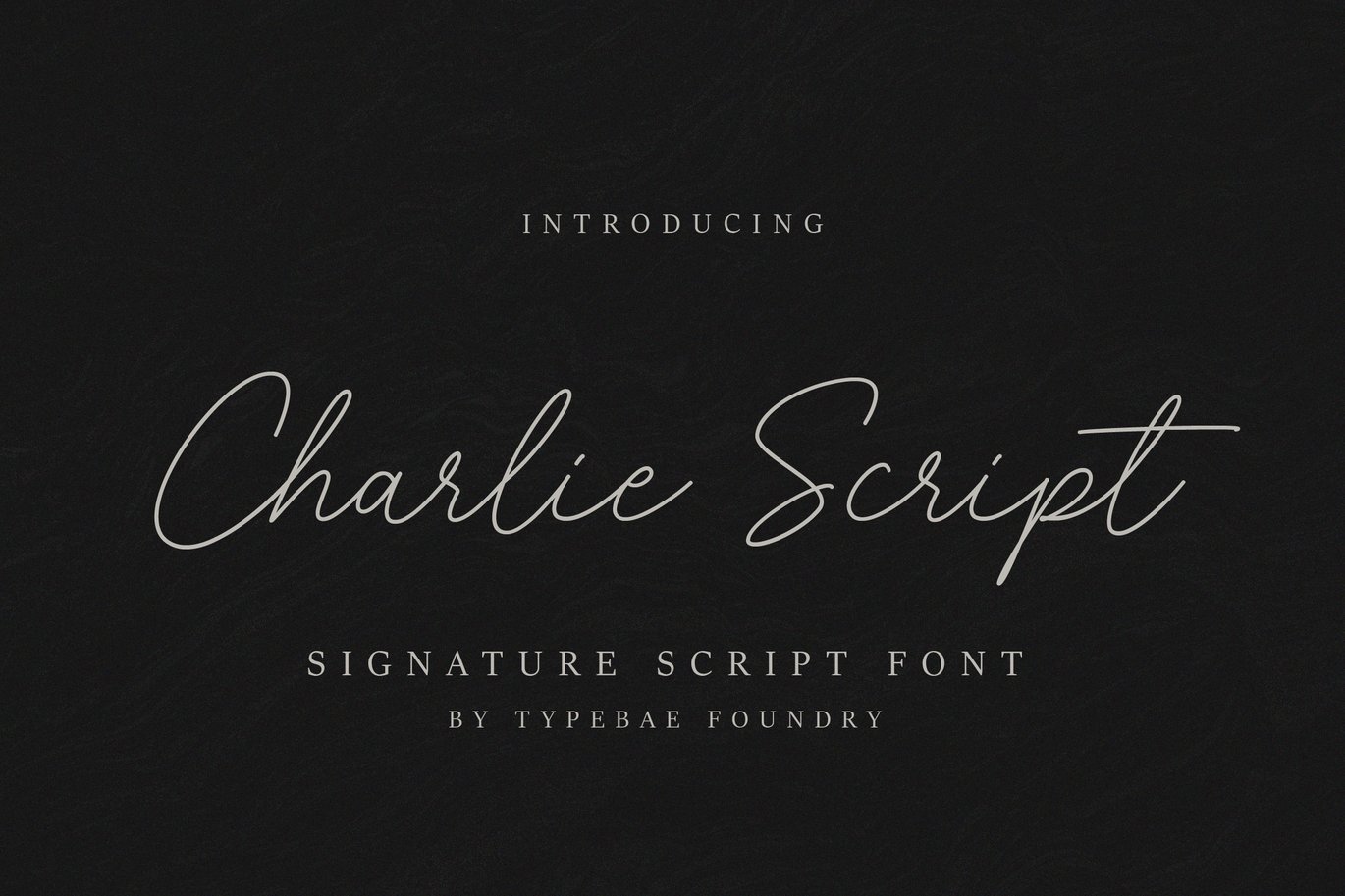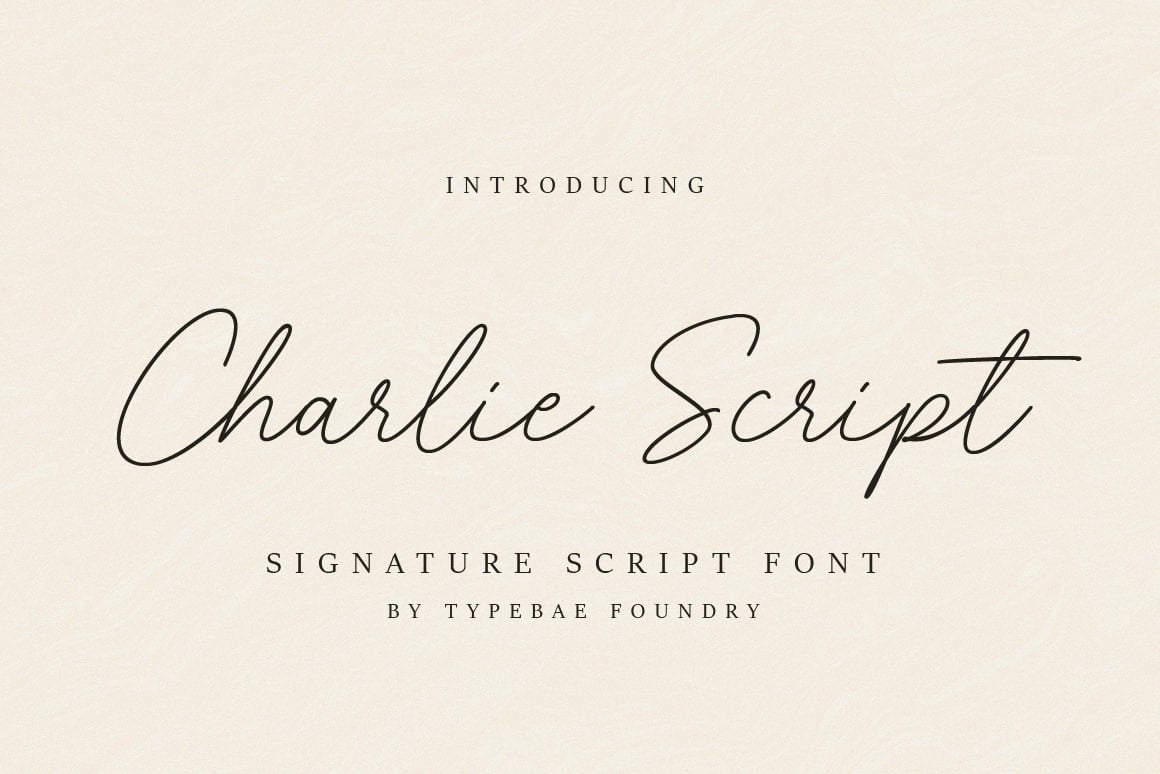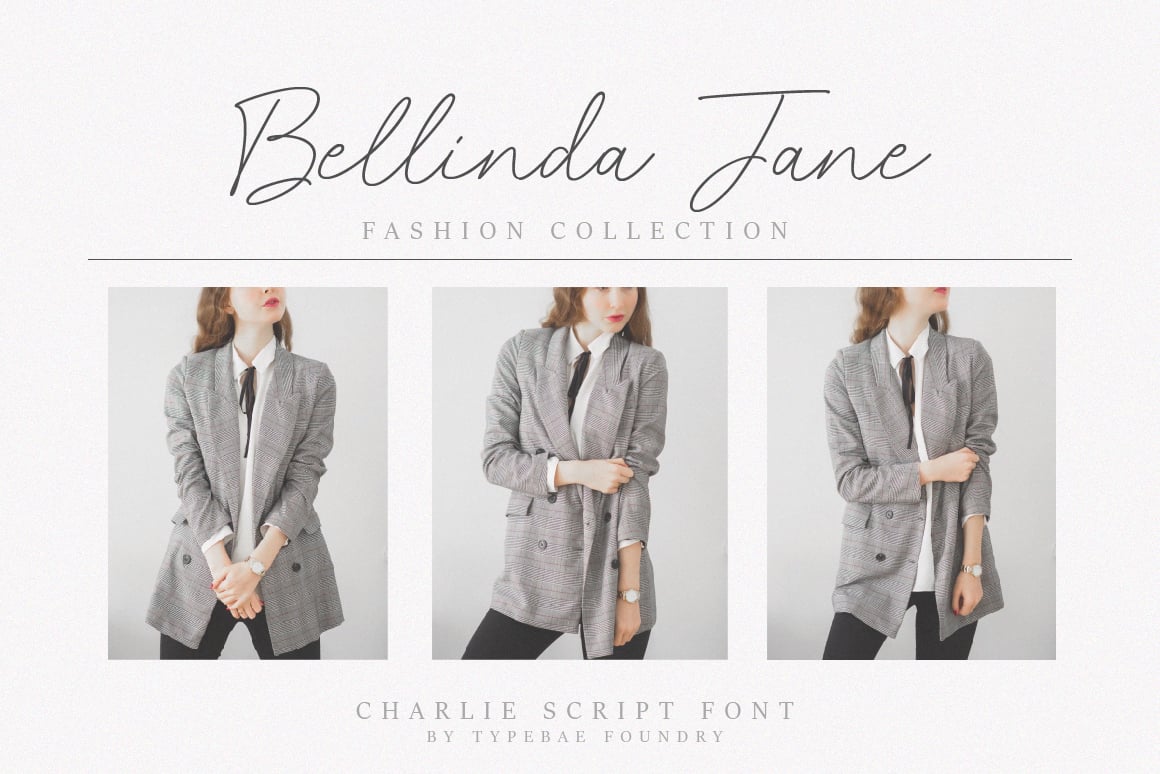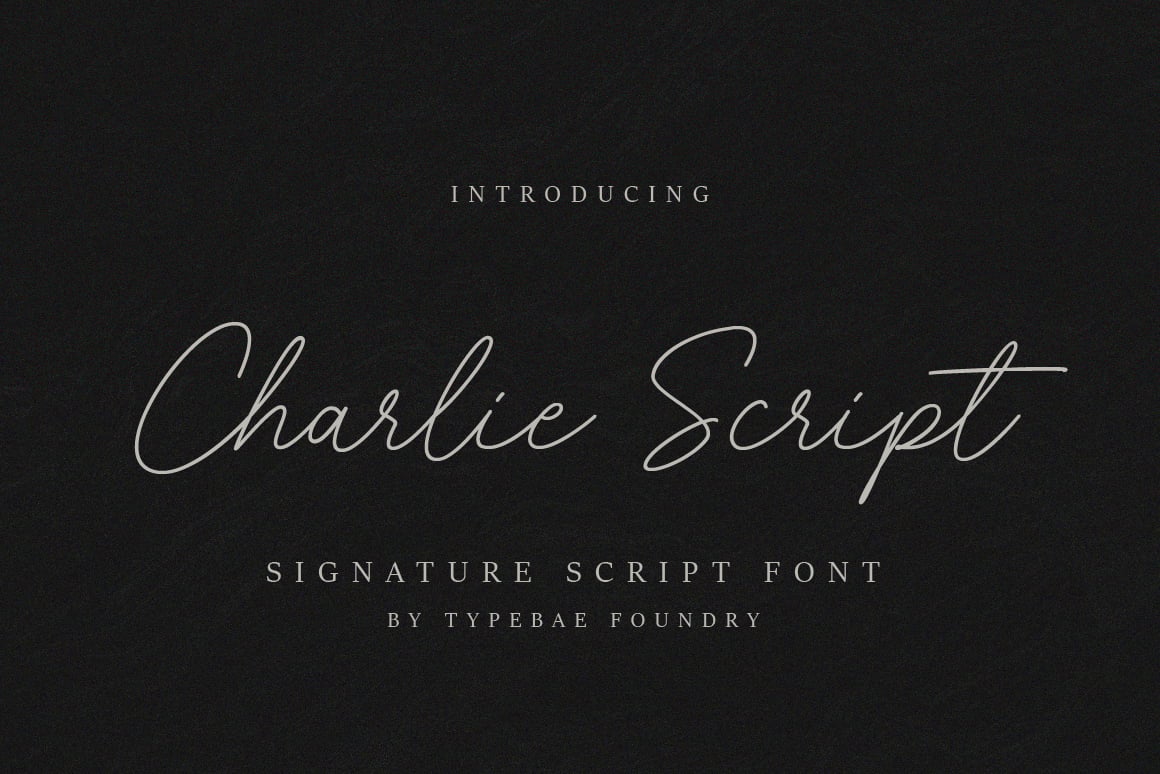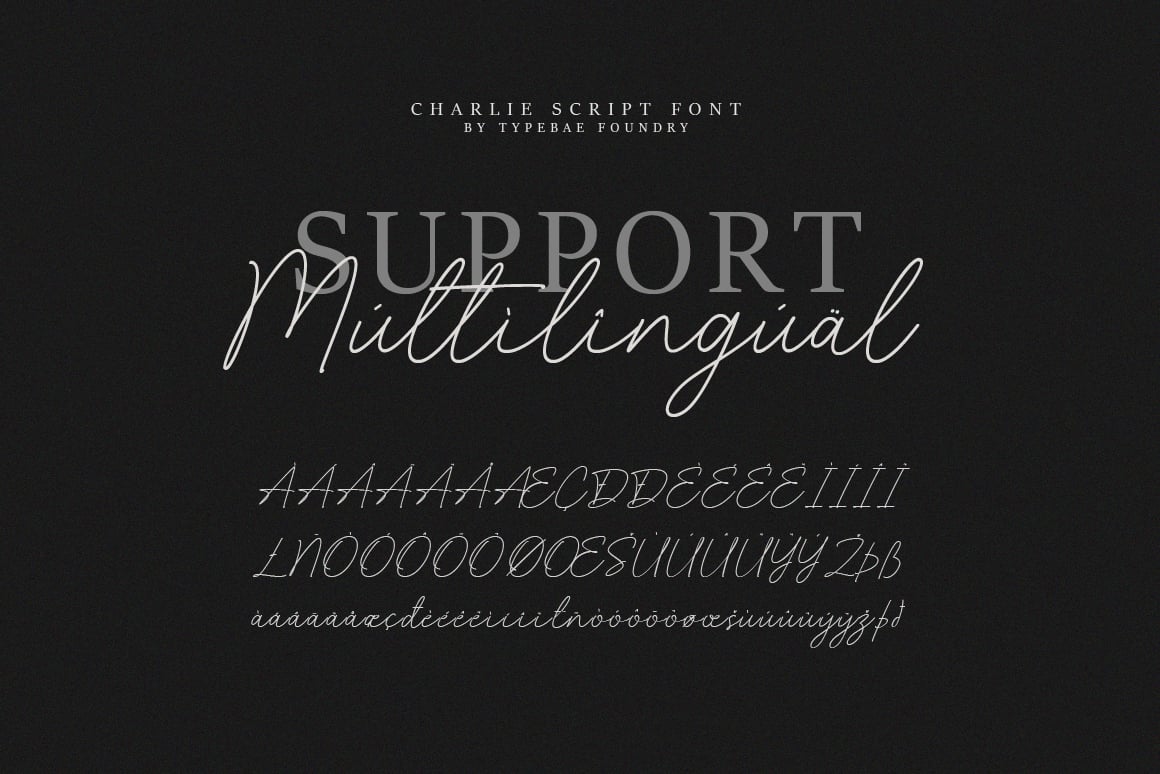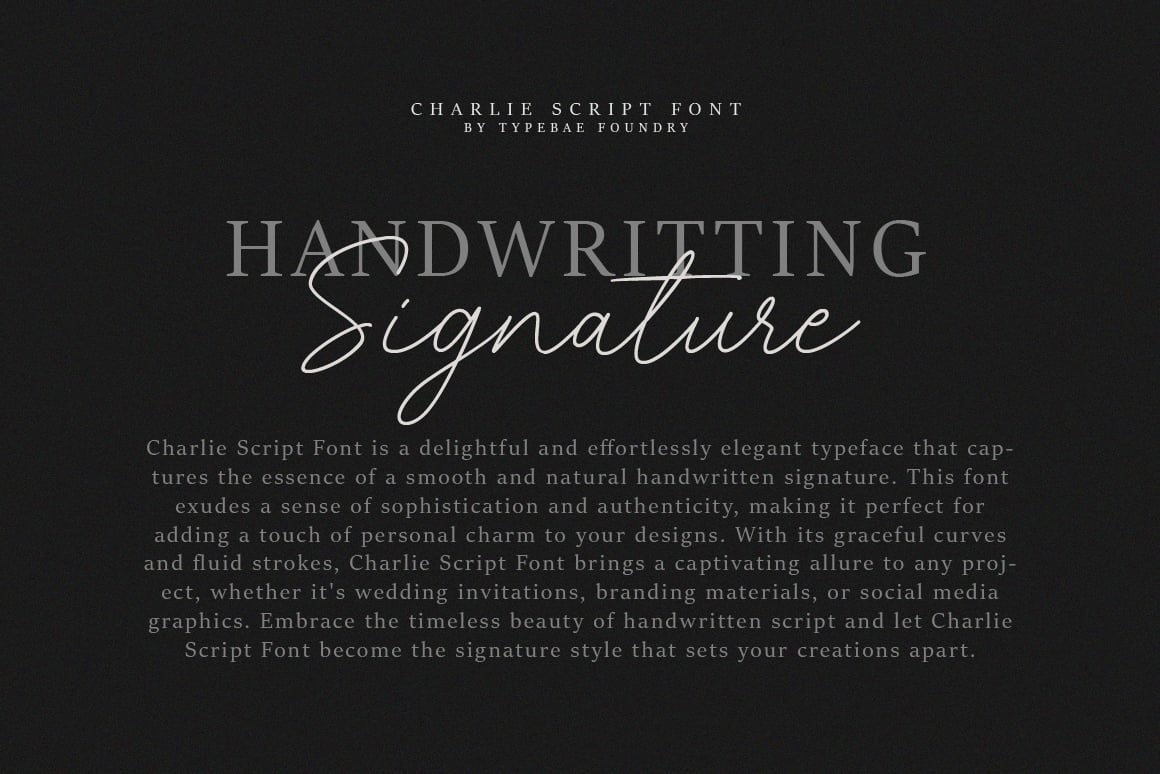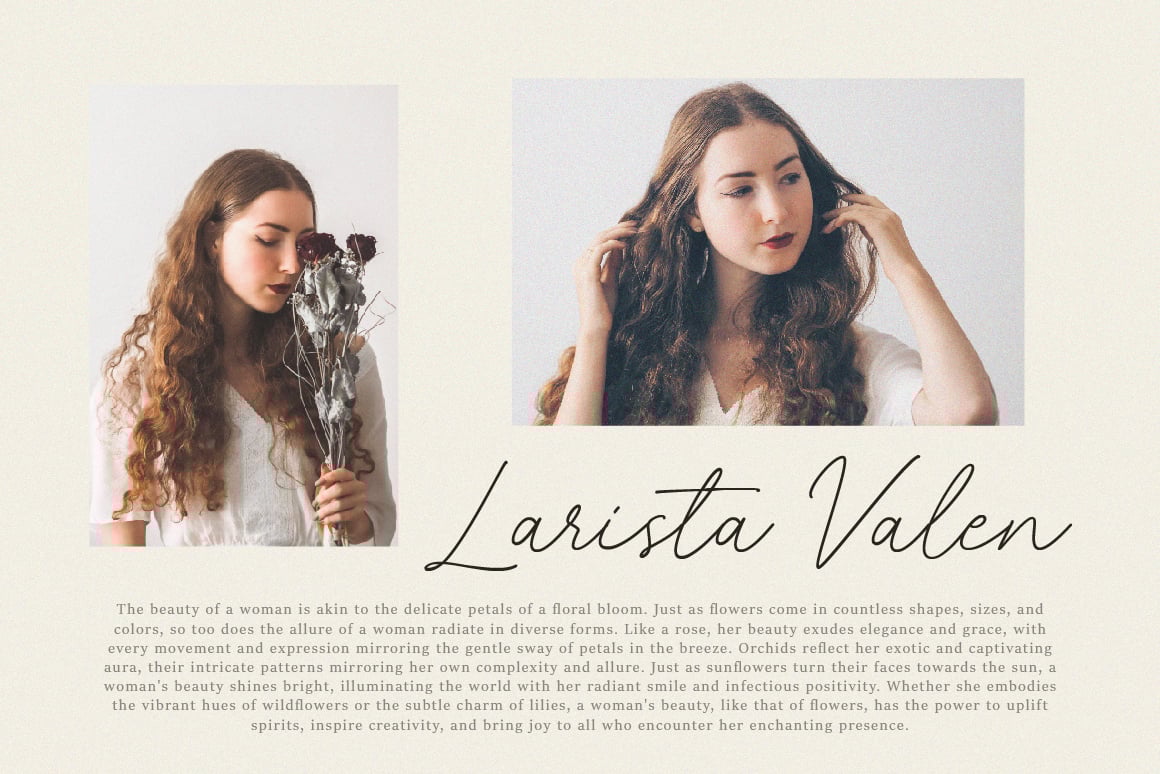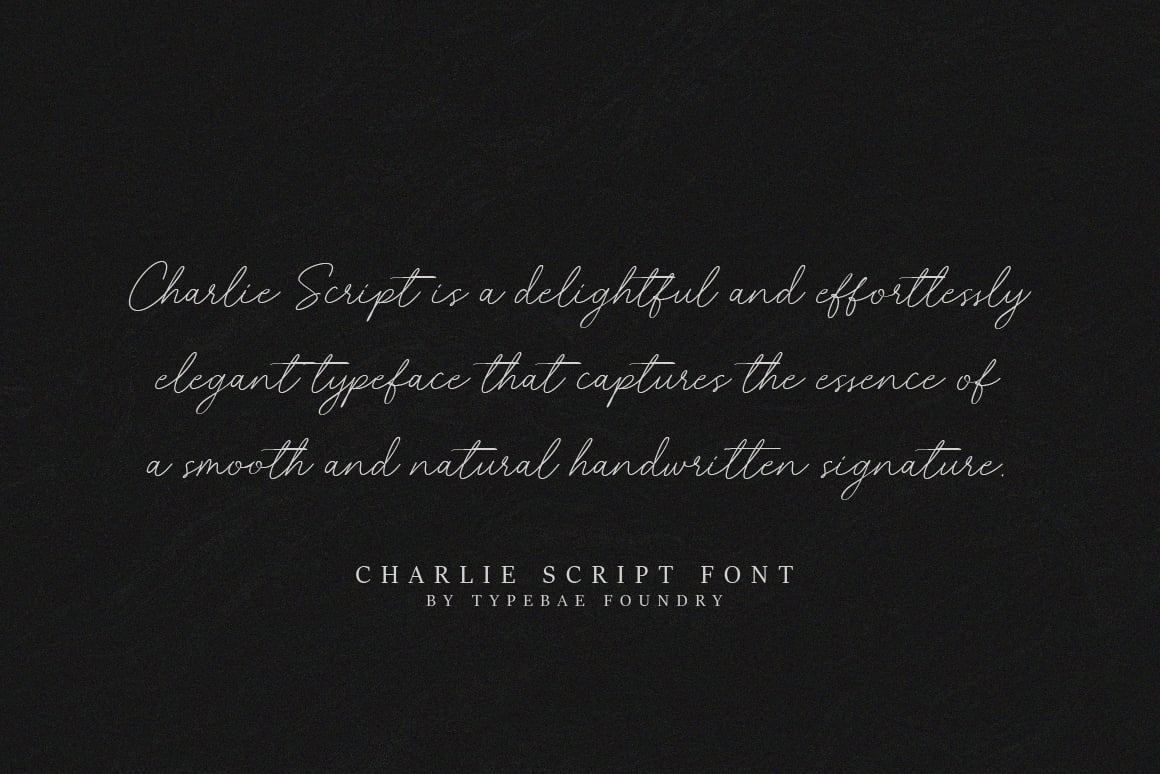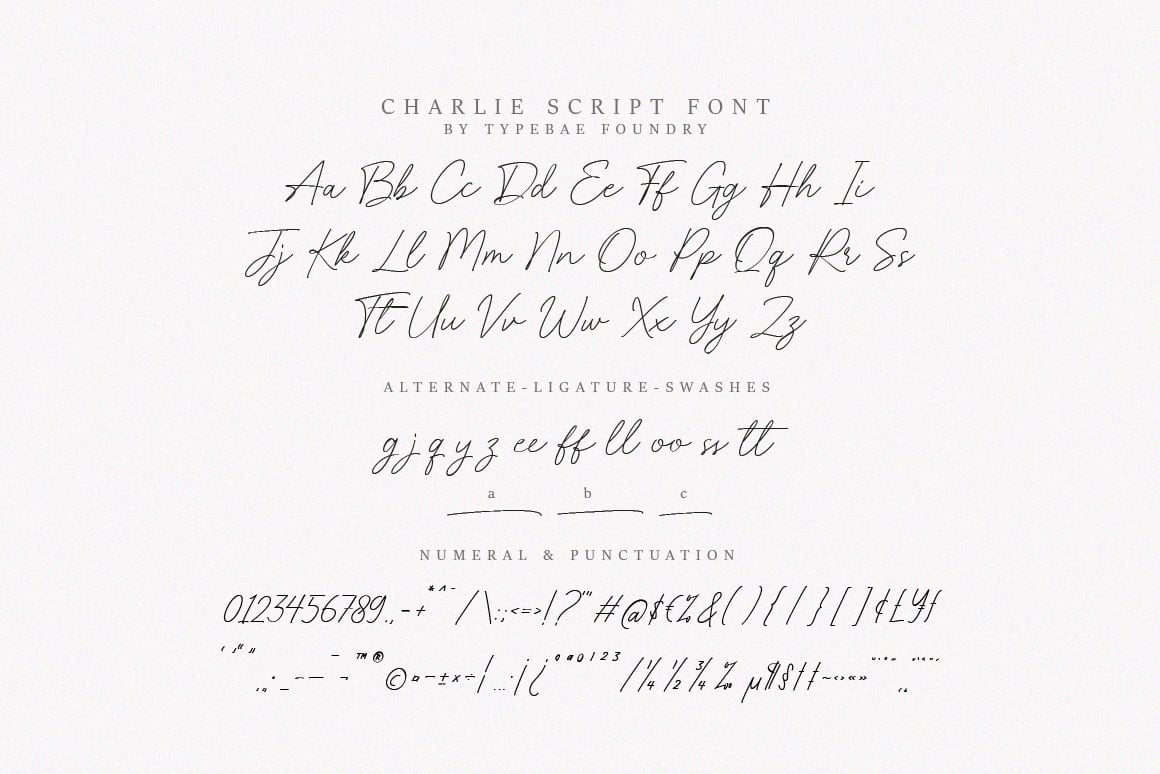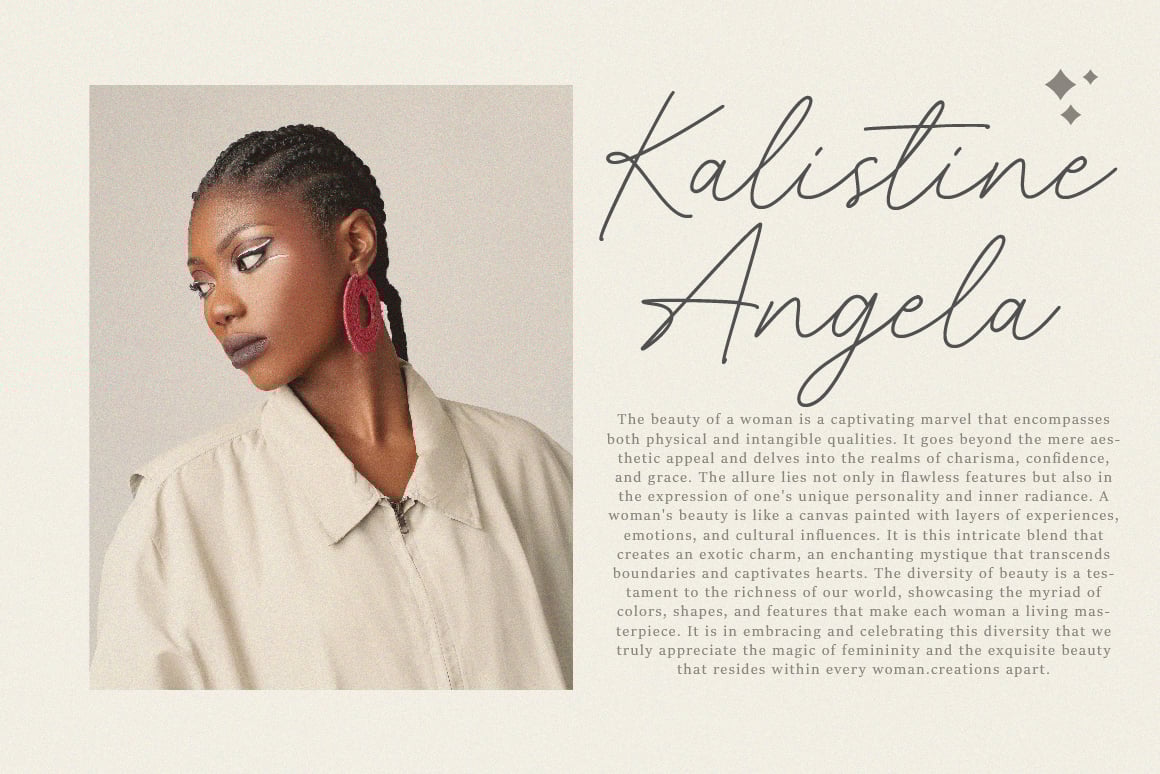
Charlie Script Font
Charlie Script is a delightful and effortlessly elegant typeface that captures the essence of a smooth and natural handwritten signature. This font exudes a sense of sophistication and authenticity, making it perfect for adding a touch of personal charm to your designs. Embrace the timeless beauty of handwritten script and let Charlie Script Font become the signature style that sets your creations apart.
- Full alphabet and punctuation
- Alternate, Ligature & Swashes
- Multilingual Support: Afrikaans, Basque, Breton, Catalan, Danish, Dutch, English, Finnish, French, Gaelic (Irish, Scots), German, Icelandic, Indonesian, Irish, Italian, Norwegian, Portuguese, Saami (Southern), Spanish, Swahili, Swedish.